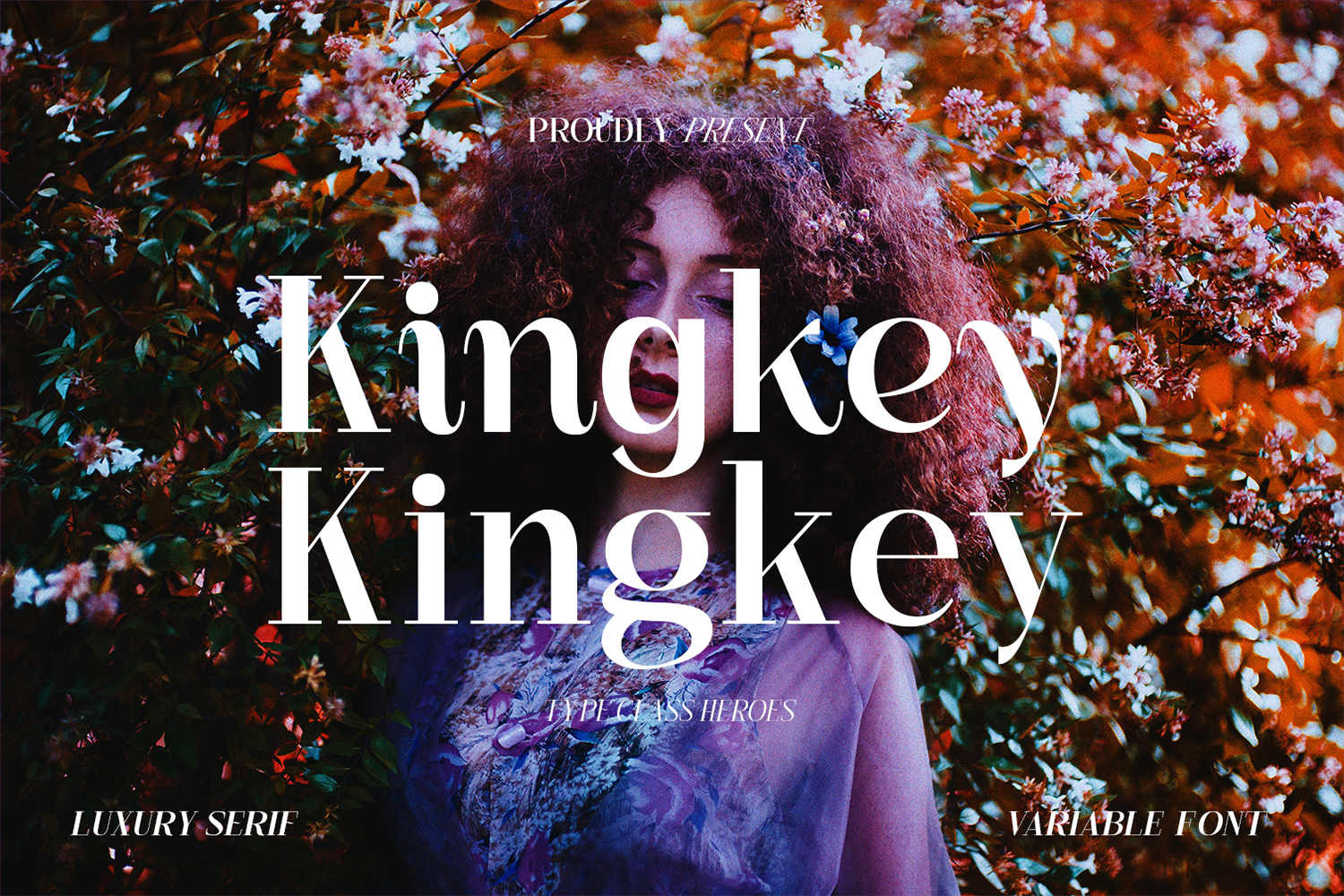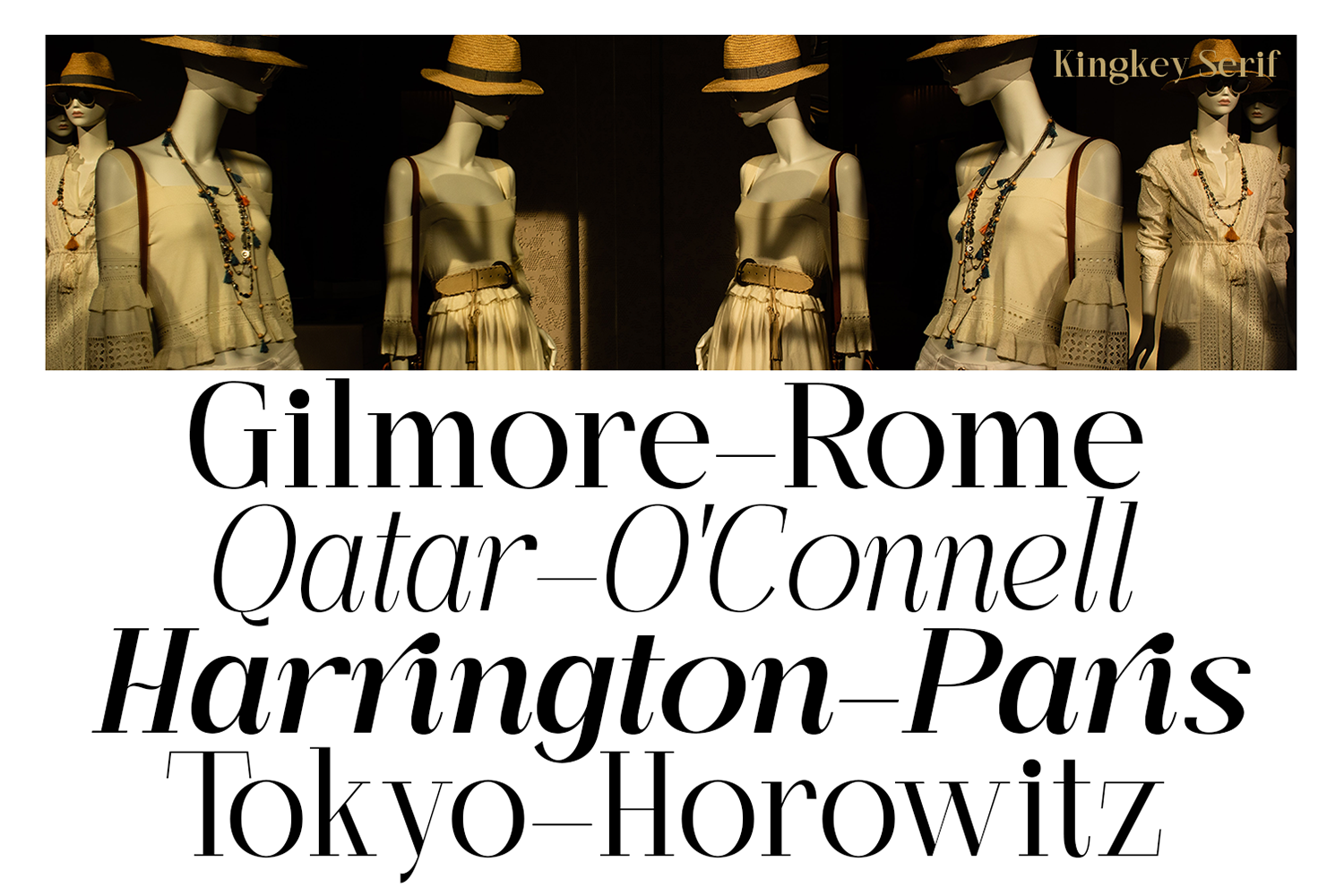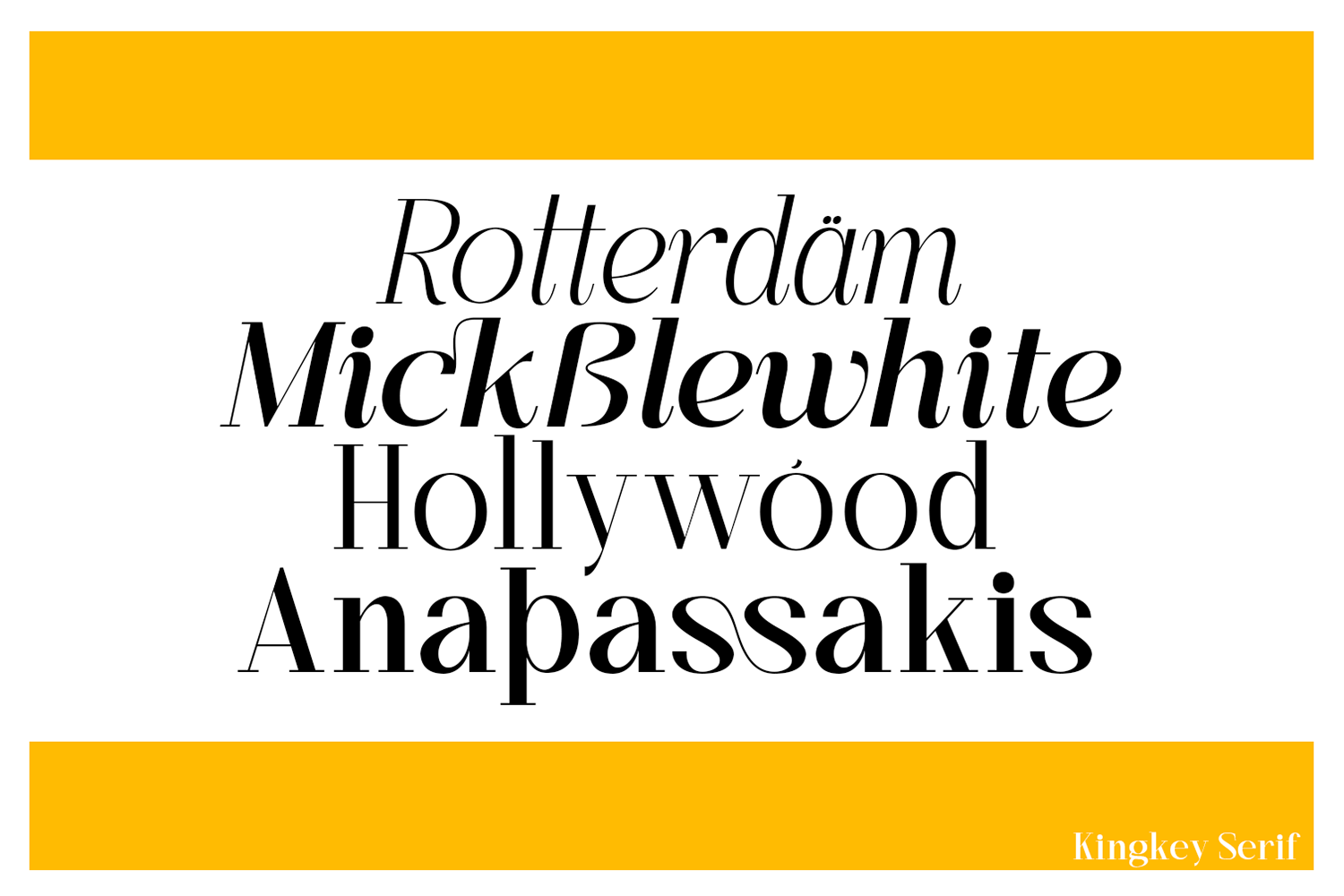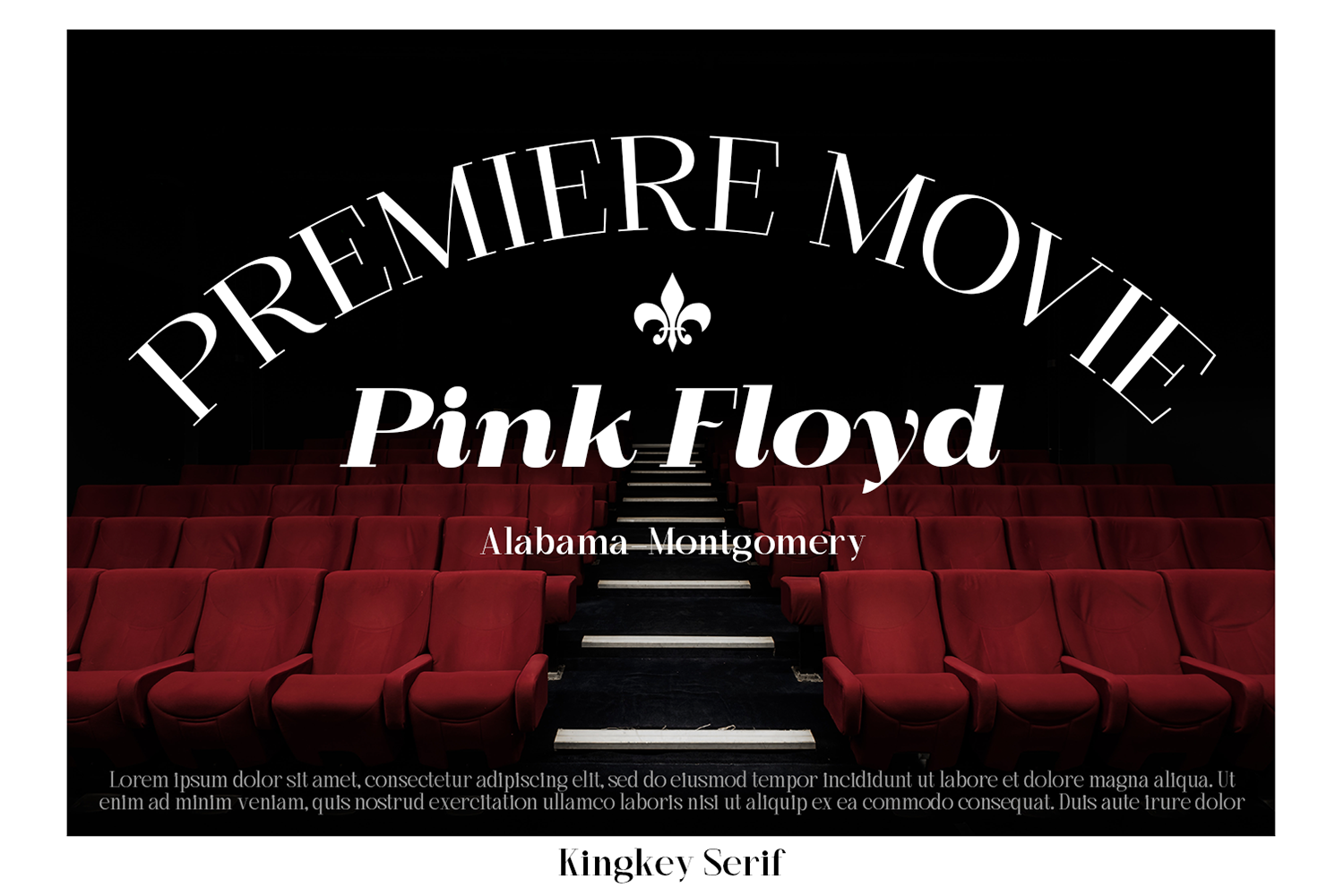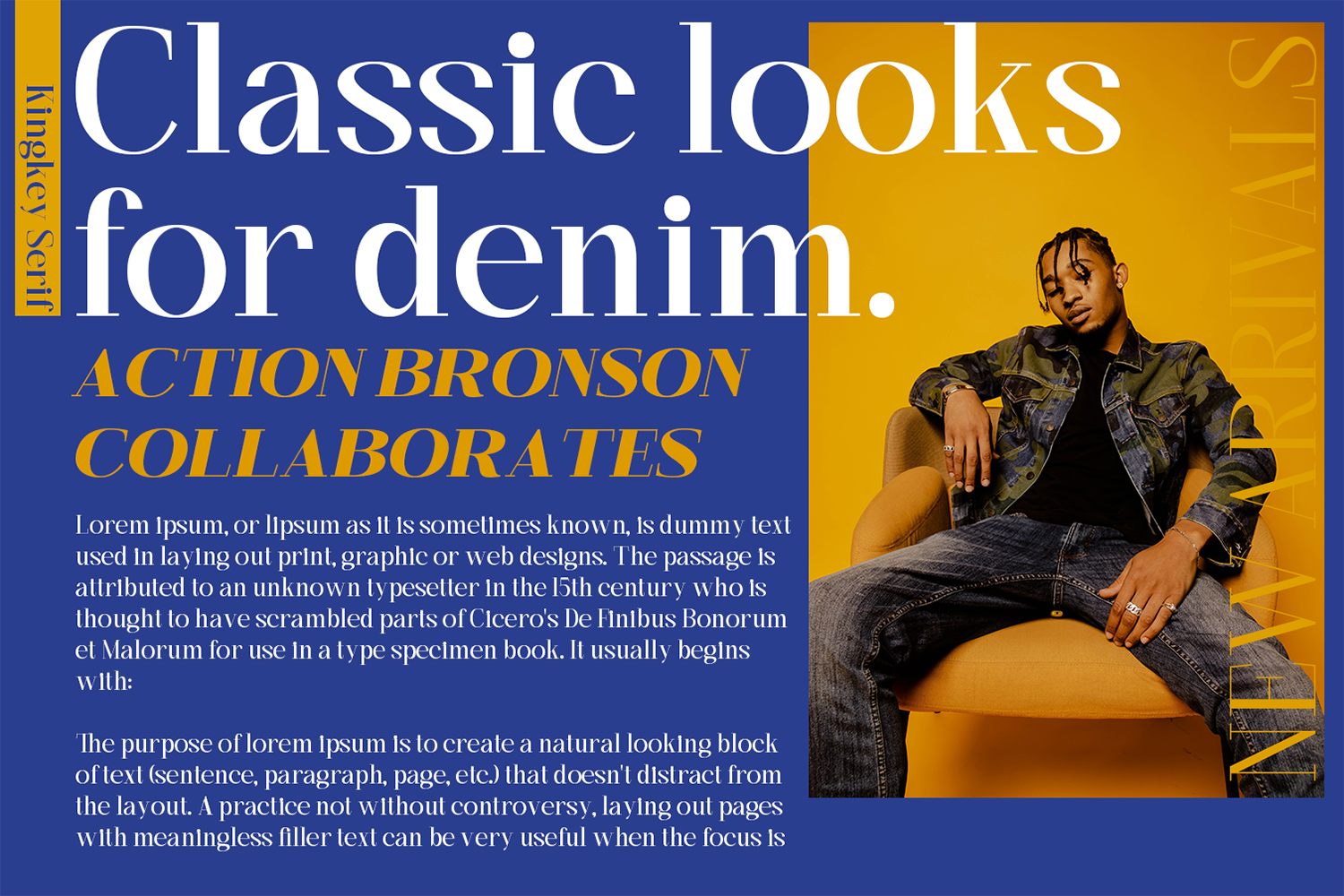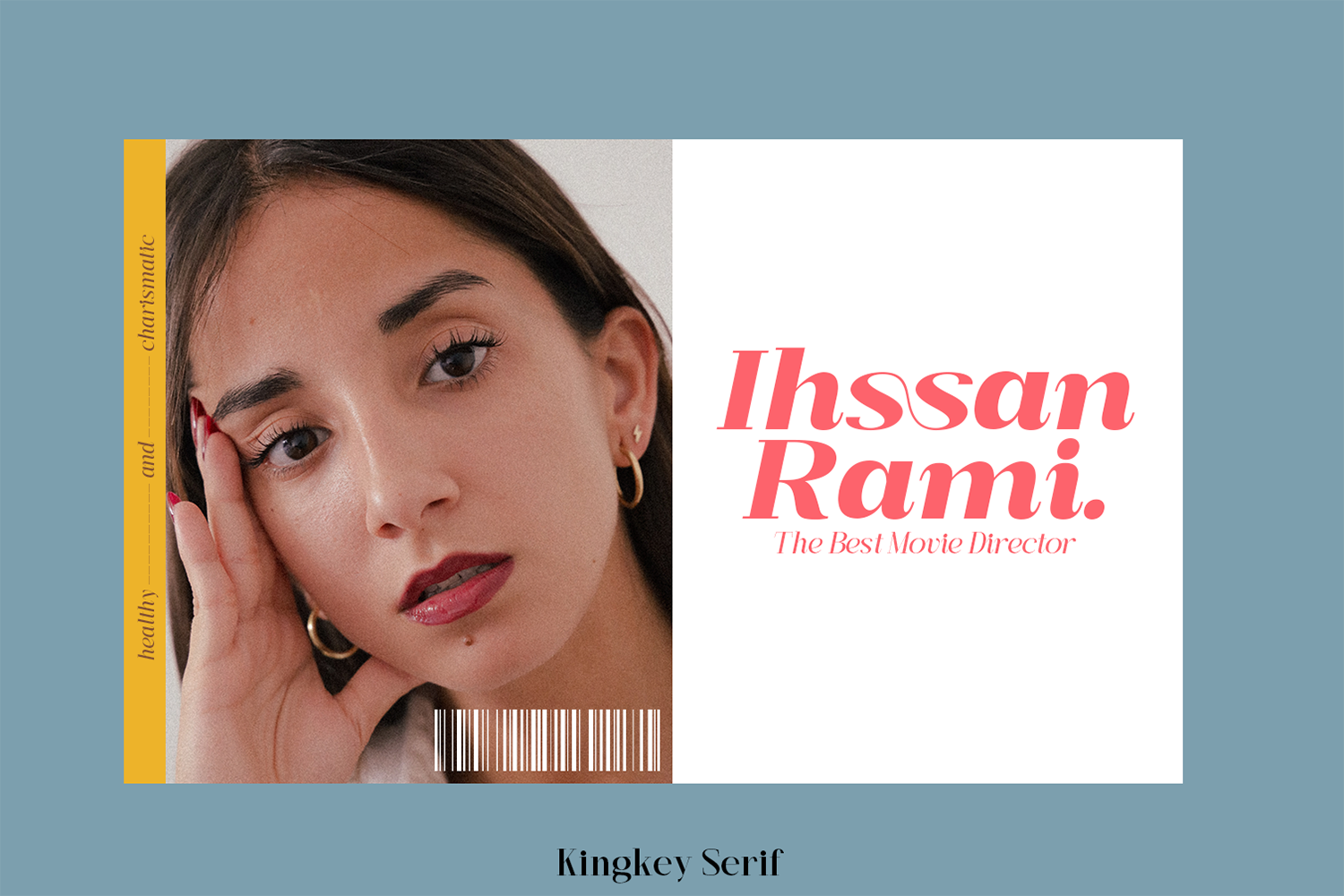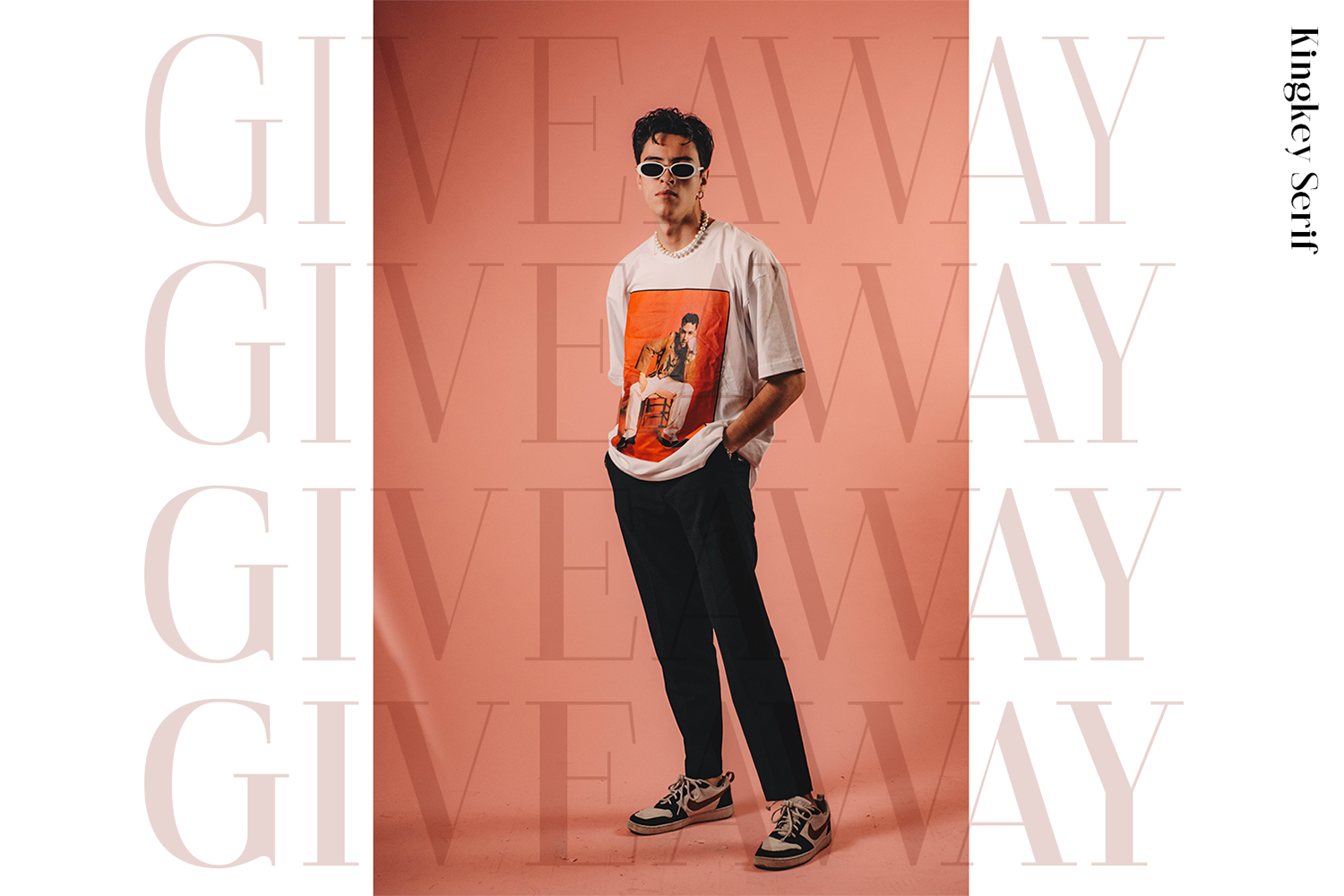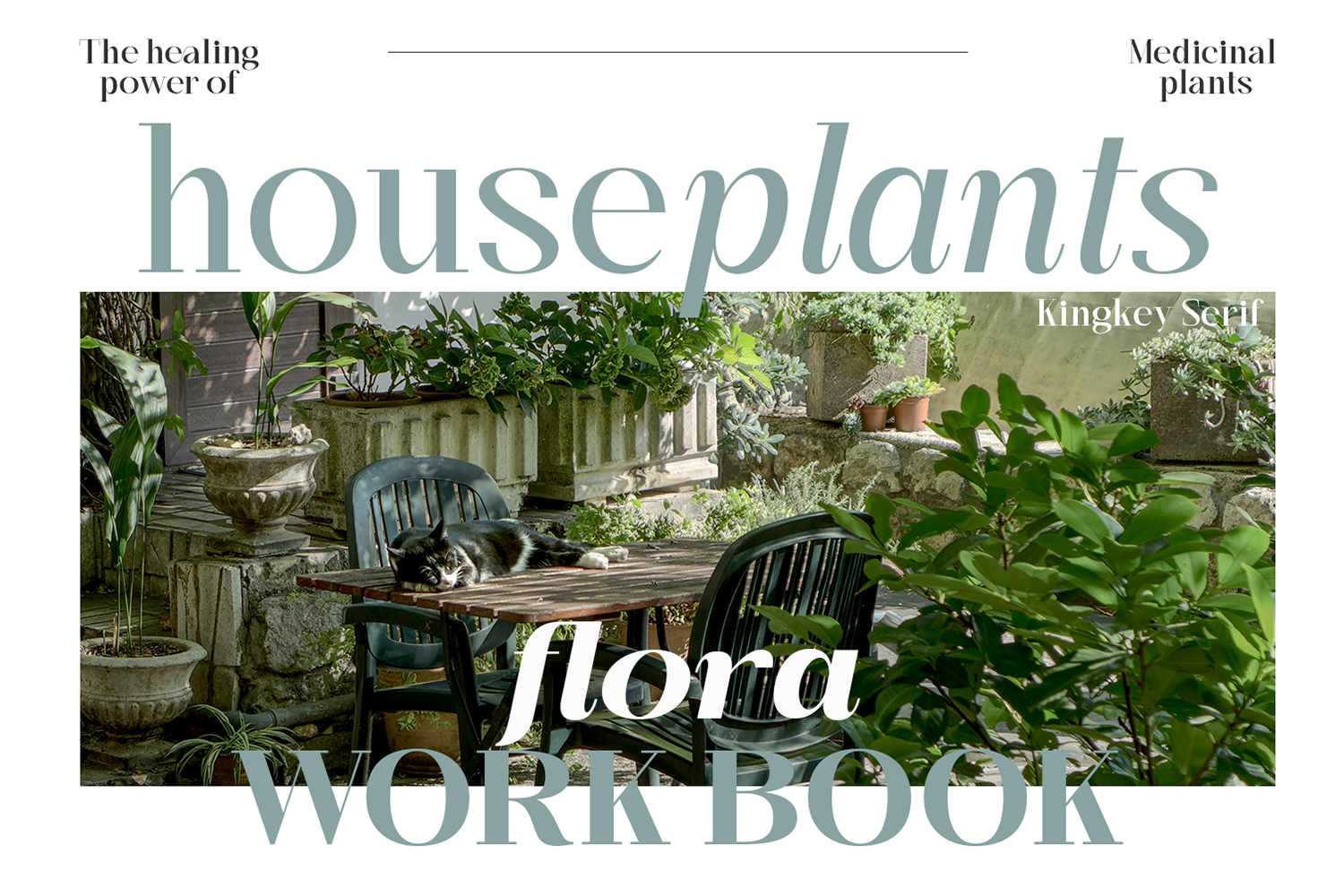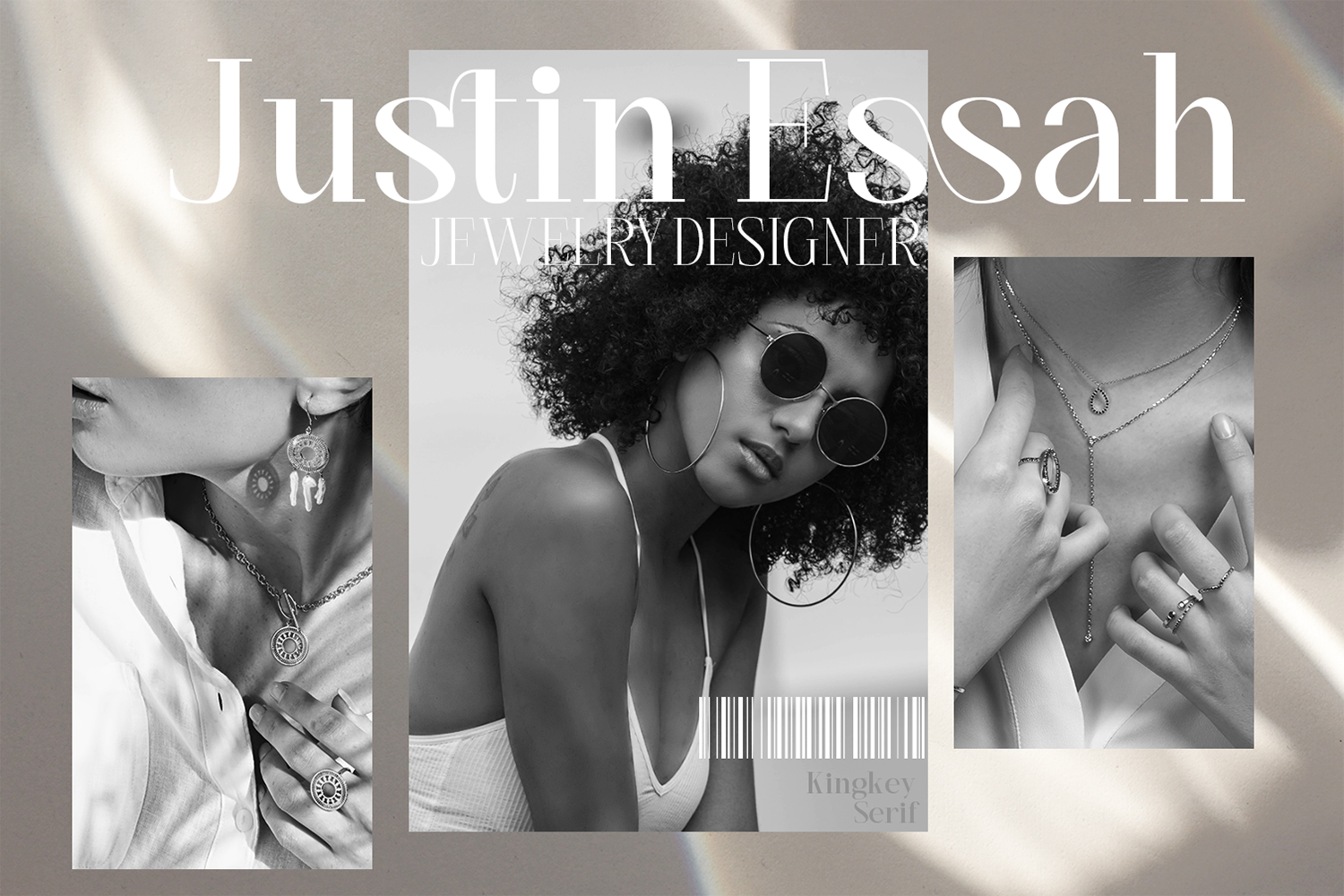
Kingkey Font Family
Kingkey and Kingkey Neue is a serif family comes with Classic and Modern. It’s clean and smooth with 9 variable much ligature inside. Suitable to create any branding, product packaging, invitation, quotes, t-shirt, label, poster, logo etc.
• Uppercase & Lowercase
• Number & Symbol
• International Glyphs
• Multilingual support
• Alternative
• Ligature